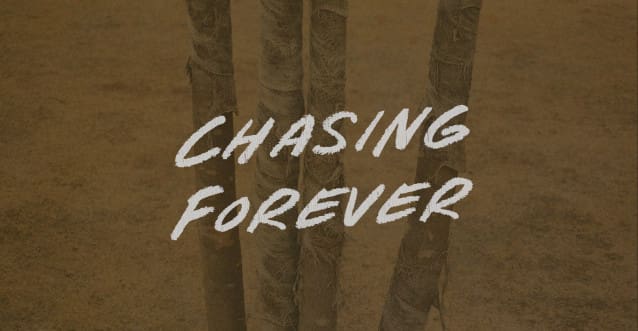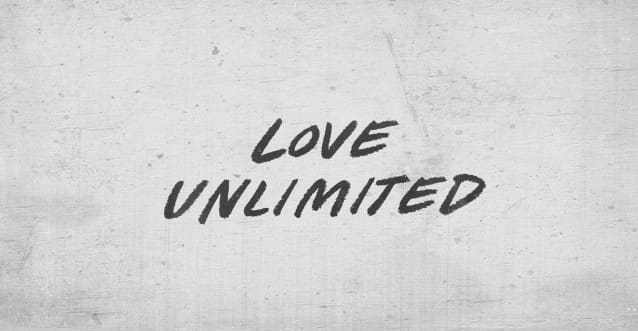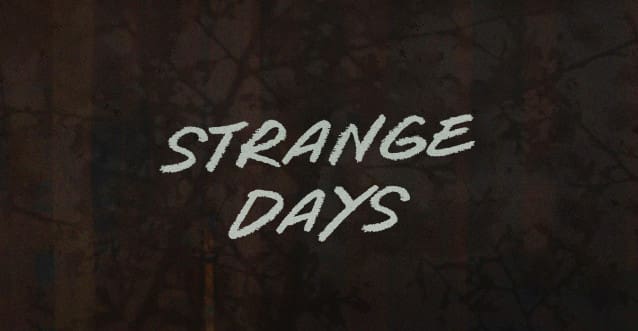
Strange Daze Font
Strange Daze Font Handwritten Brush Marker Font, It would be a perfect choice to design posters, affiches, logos, t-shirt and magazine prints, eye-pleasing typographic designs and more.